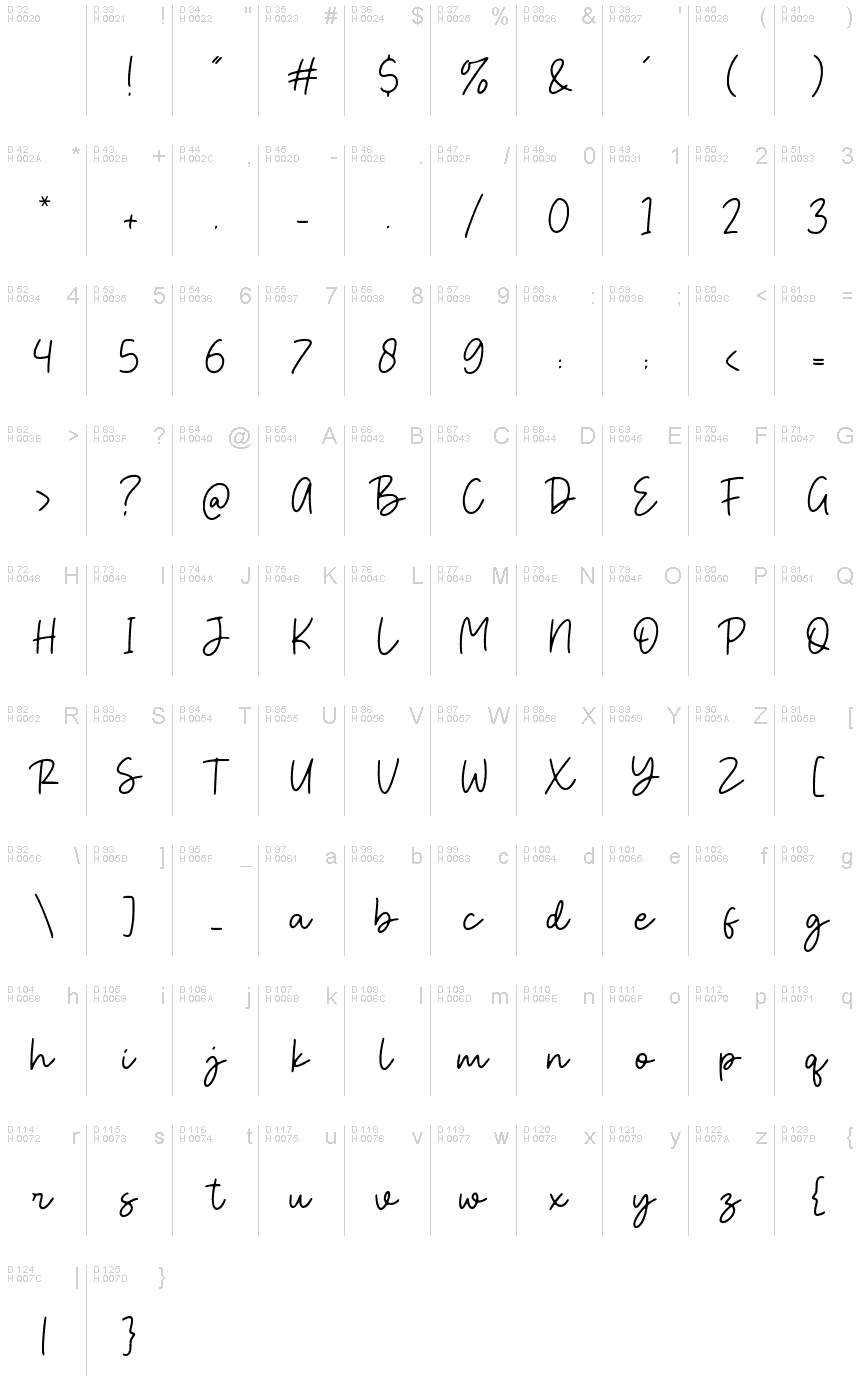
great banana script
Great Banana Script, crafted by Aestherica Studio, is an exquisite handwritten font that exudes a hint of playfulness and elegance. Its semi-light weight adds a delicate touch to any project, making it perfect for wedding invitations, greeting cards, or whimsical branding materials. This delightful typeface brings an artistic flair to product packaging and blog headers, while its unique charm makes it ideal for children's books and illustrations. With Great Banana Script's graceful curves and distinctive strokes, your designs will effortlessly captivate and leave a lasting impression on your audience.